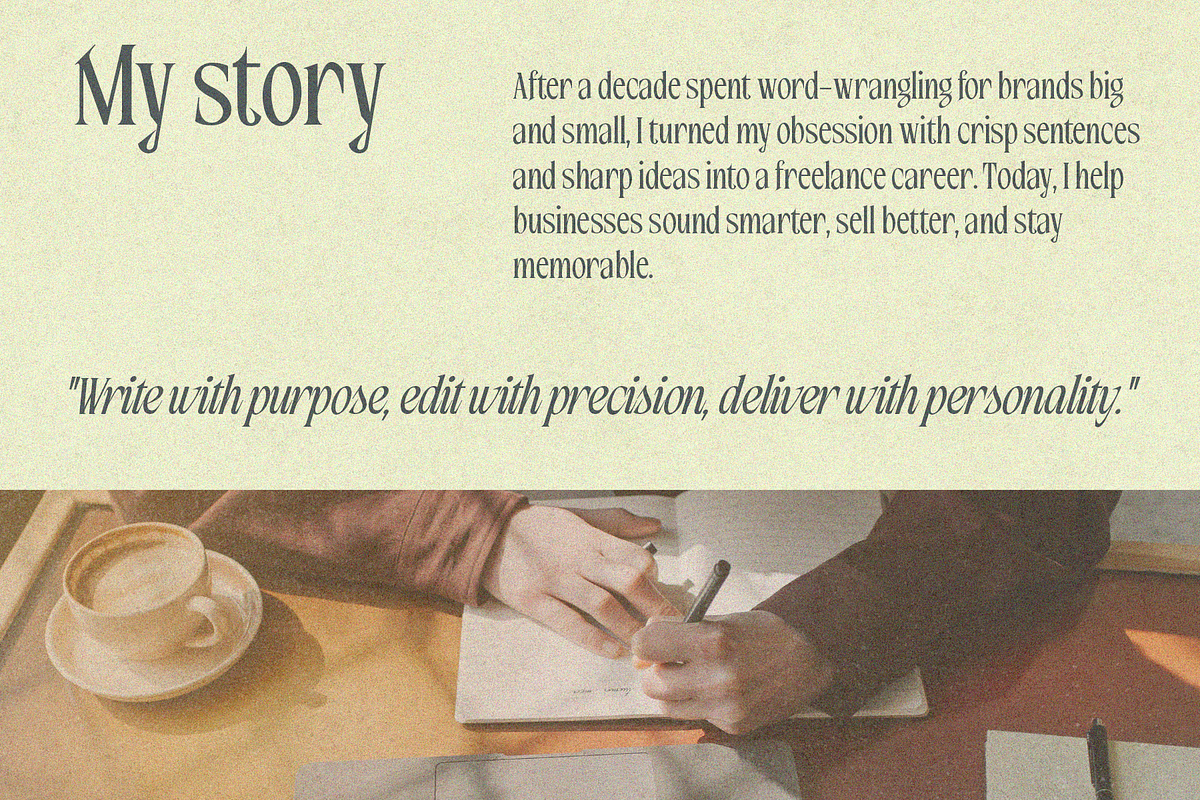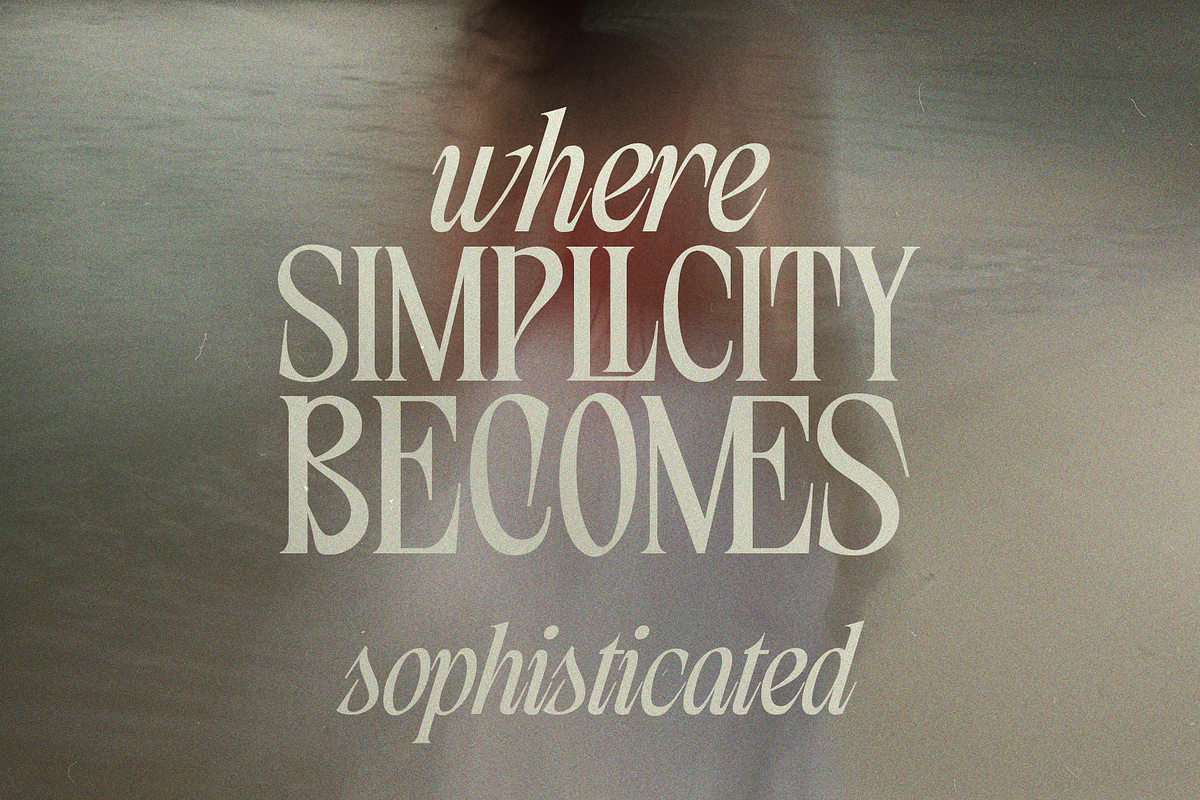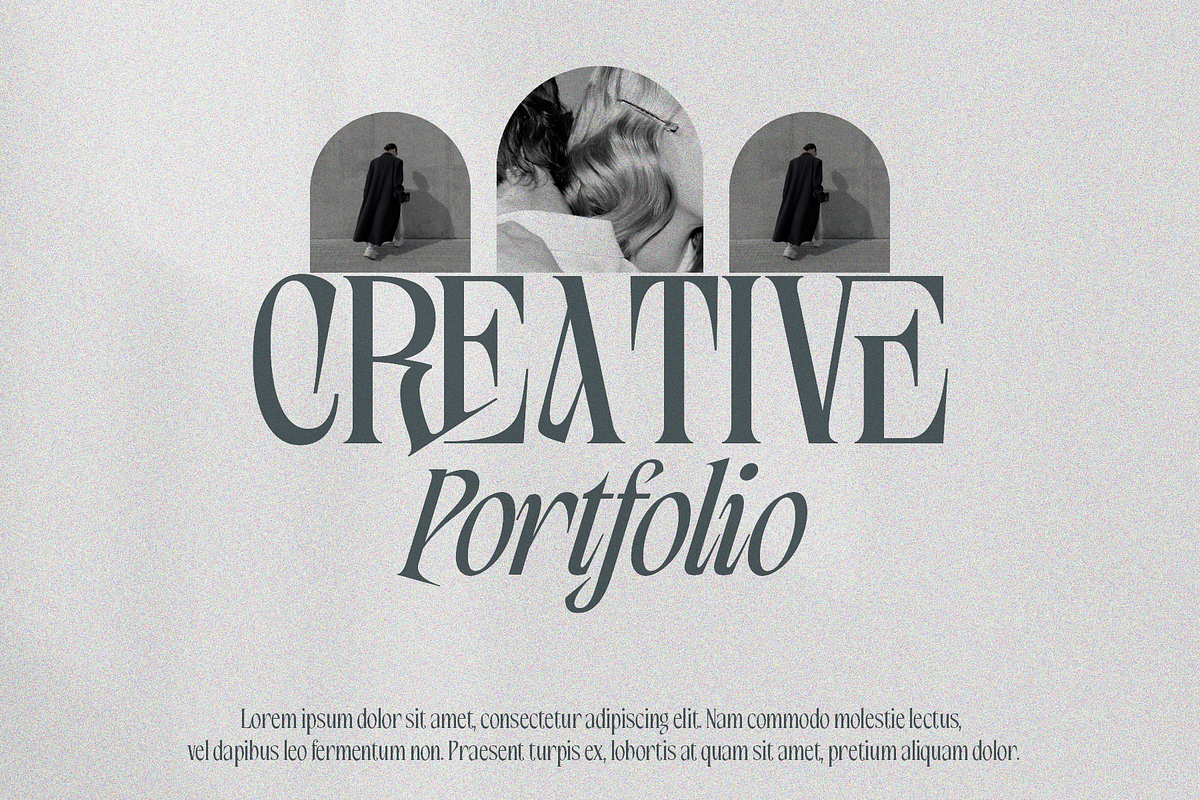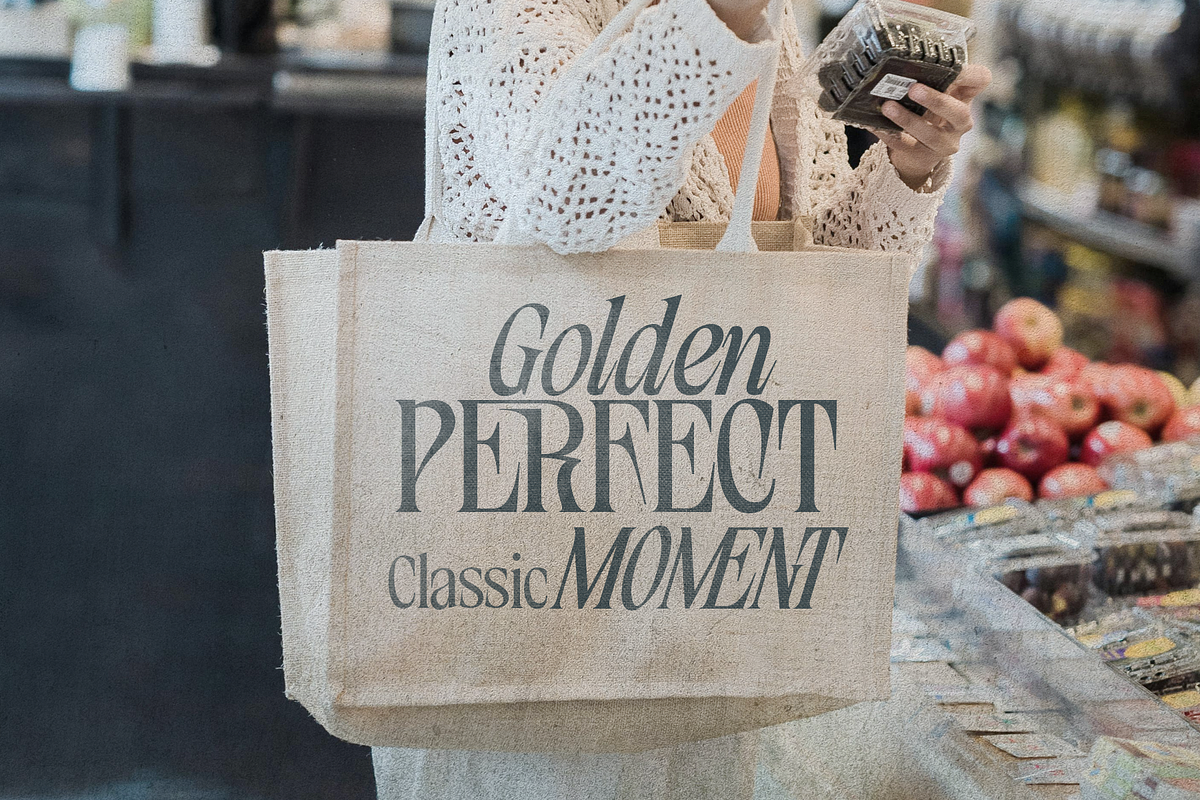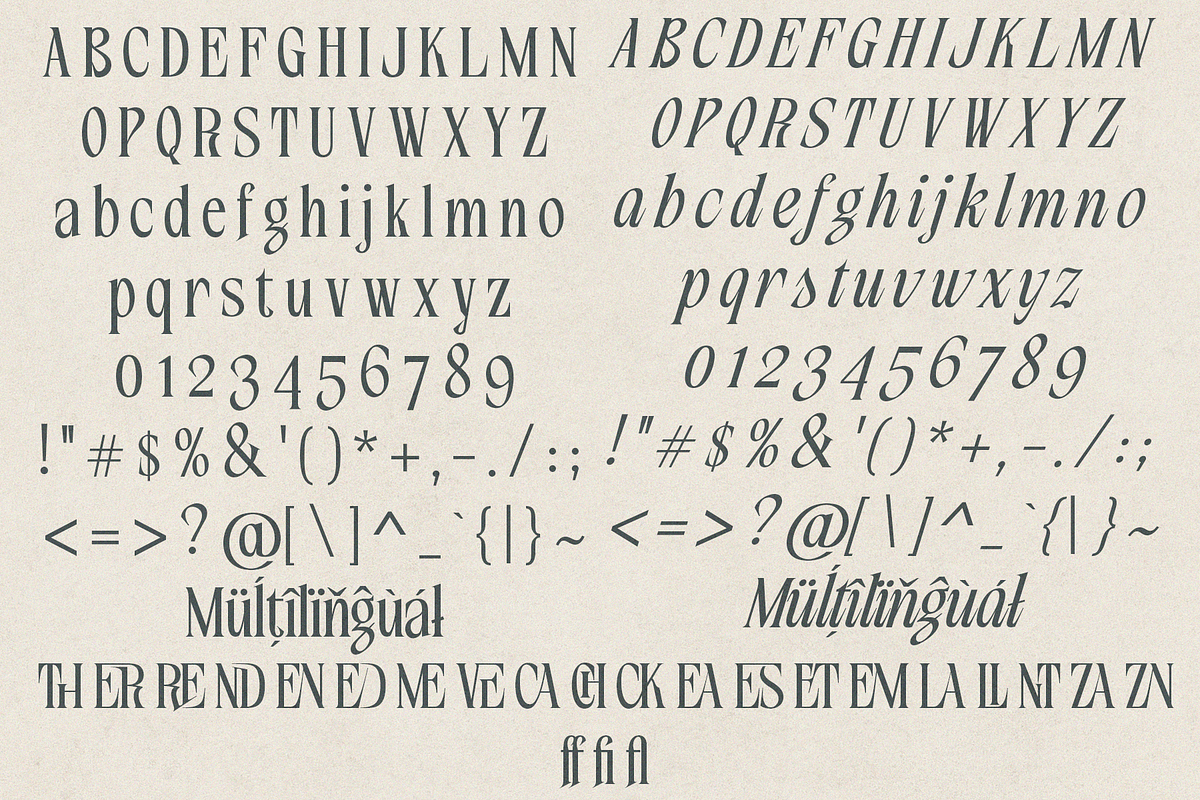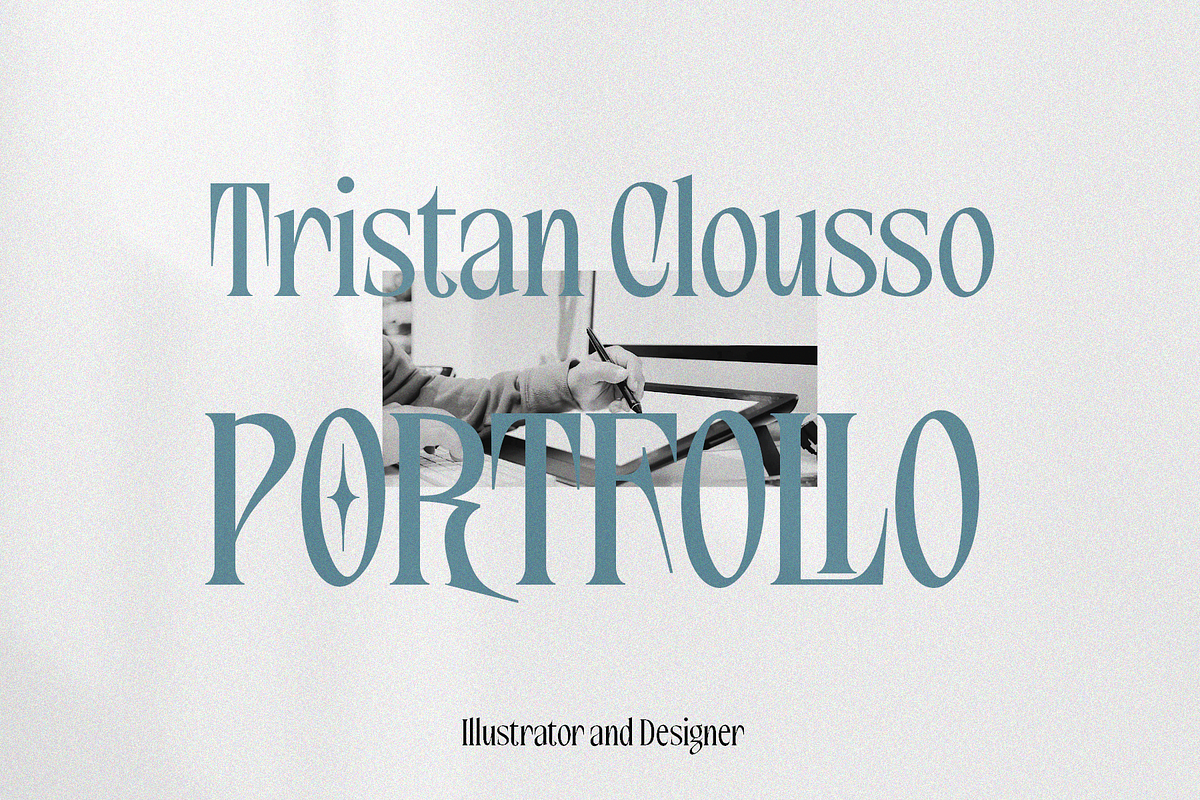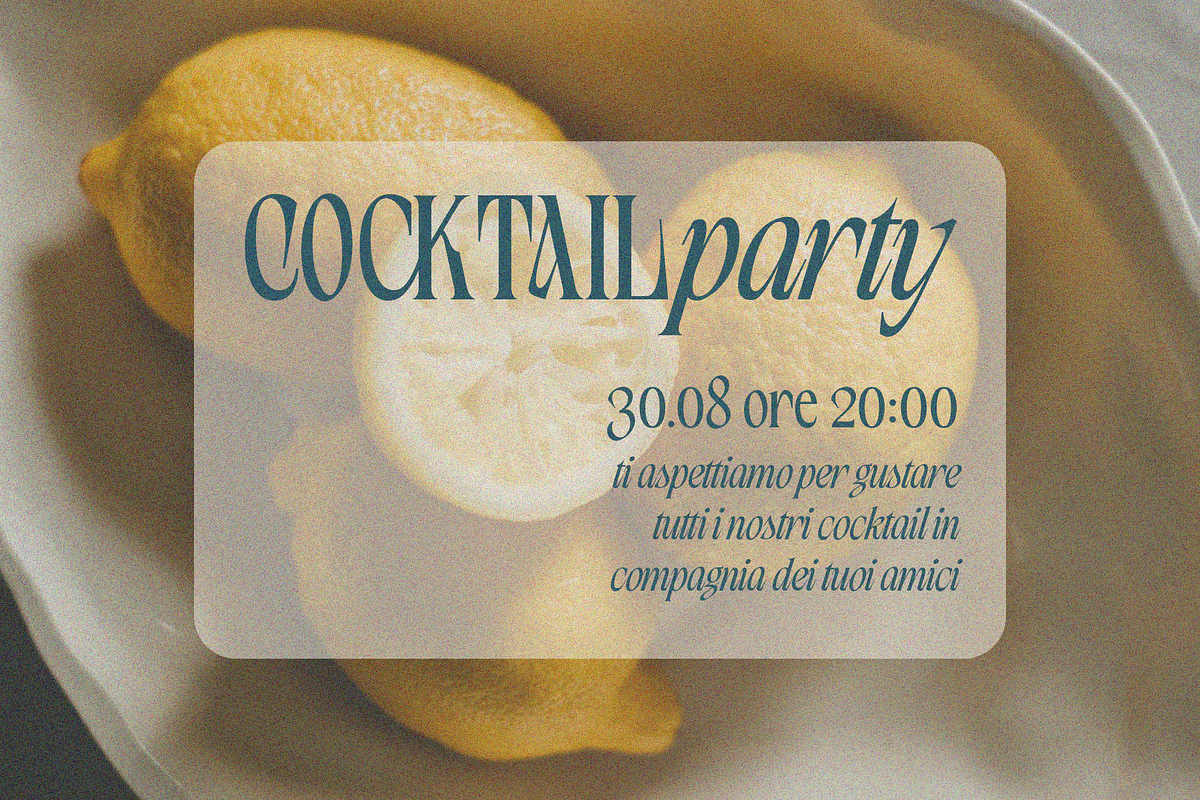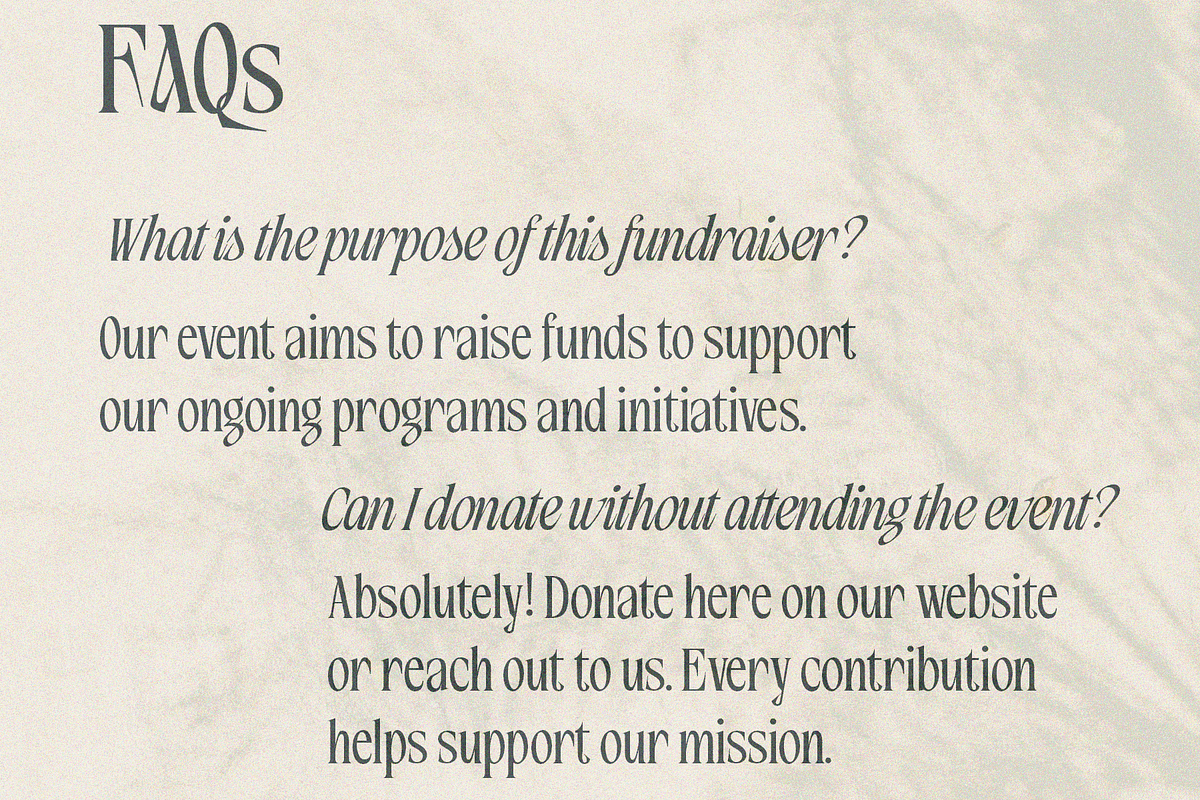
Zamros Serif Font
Zamros is a luxury modern serif font crafted with elegance, contrast, and timeless sophistication. Featuring high-fashion letterforms, graceful curves, and refined details, Zamros delivers a premium visual experience that feels both dramatic and stylish. Designed for creatives who seek beauty and exclusivity, this typeface is perfect for branding, editorial design, magazines, logos, packaging, invitations, beauty products, and upscale typography projects.
The combination of its striking Regular style and flowing Italic creates a harmonious balance between bold sophistication and artistic expression. Every character is carefully designed to provide strong visual impact while maintaining readability and elegance across both print and digital media.
\- Character set A-Z
\- Uppercase & Lowercase
\- Numerals & Punctuation
\- Accented Characters (West Europe)